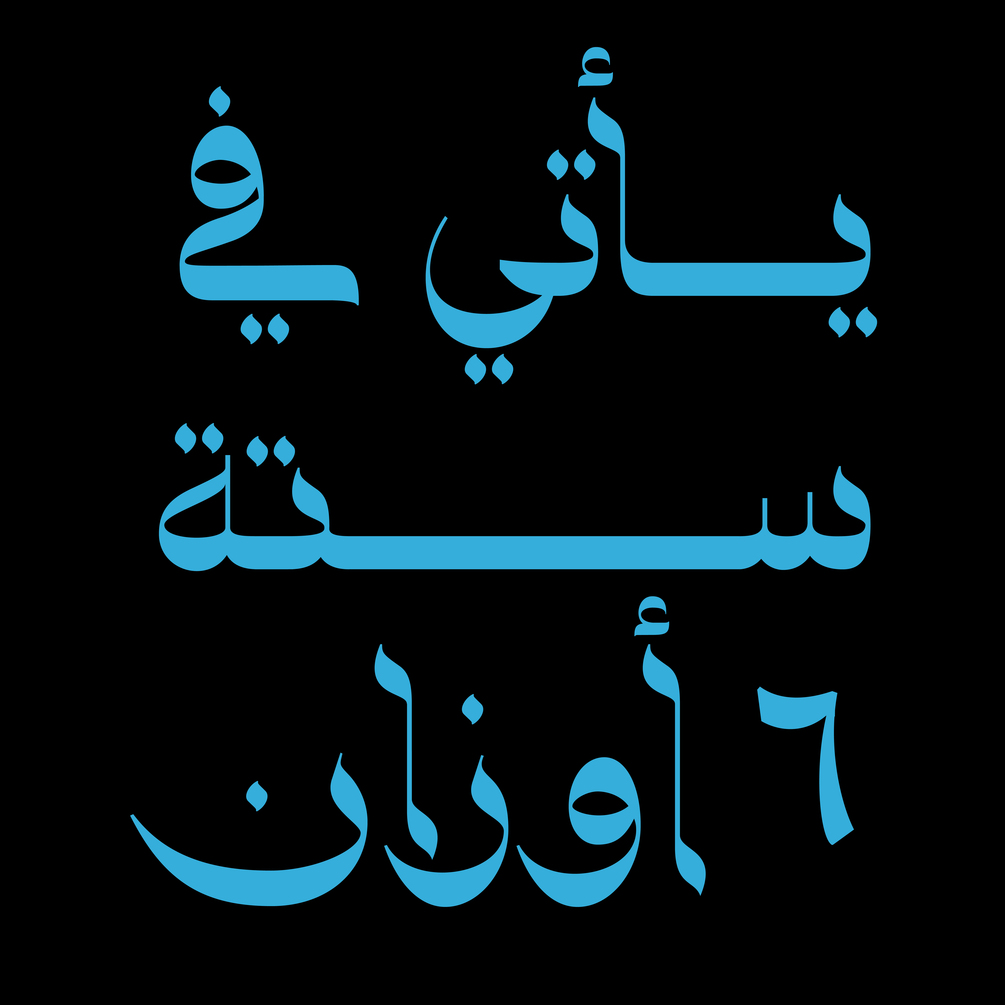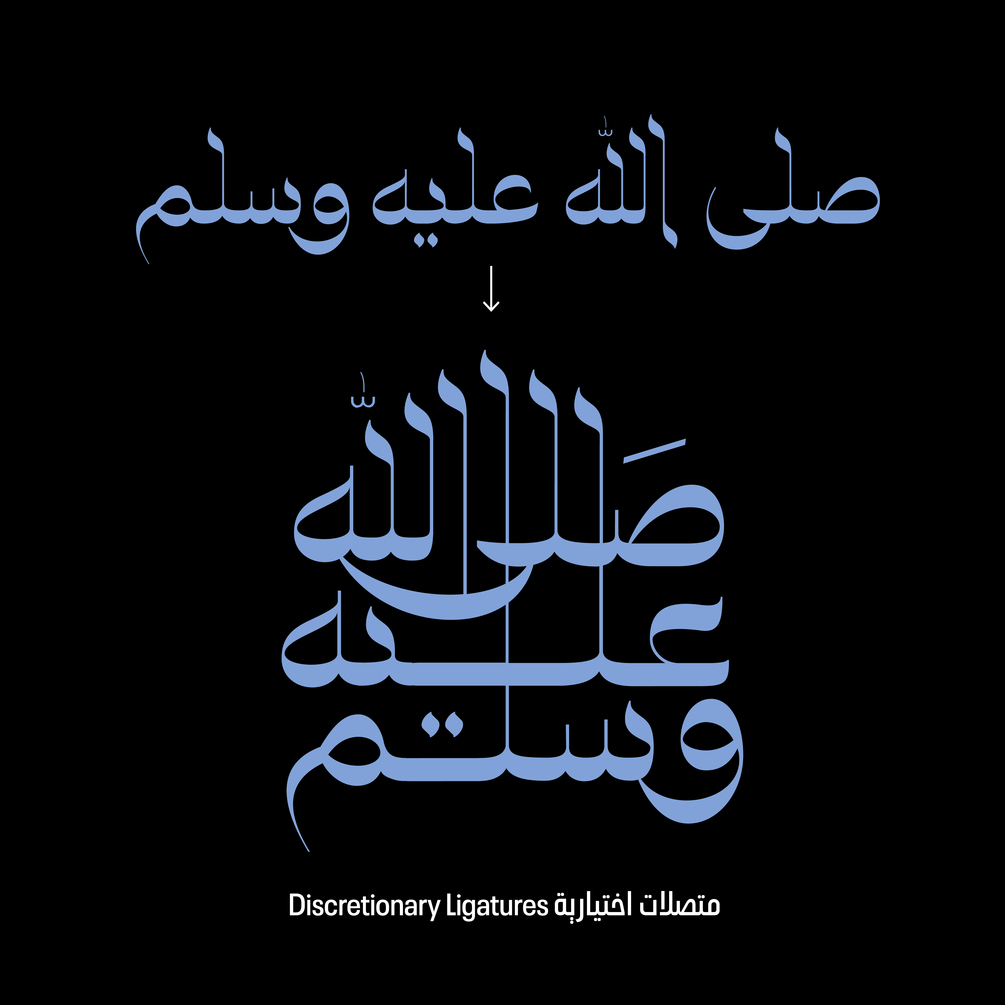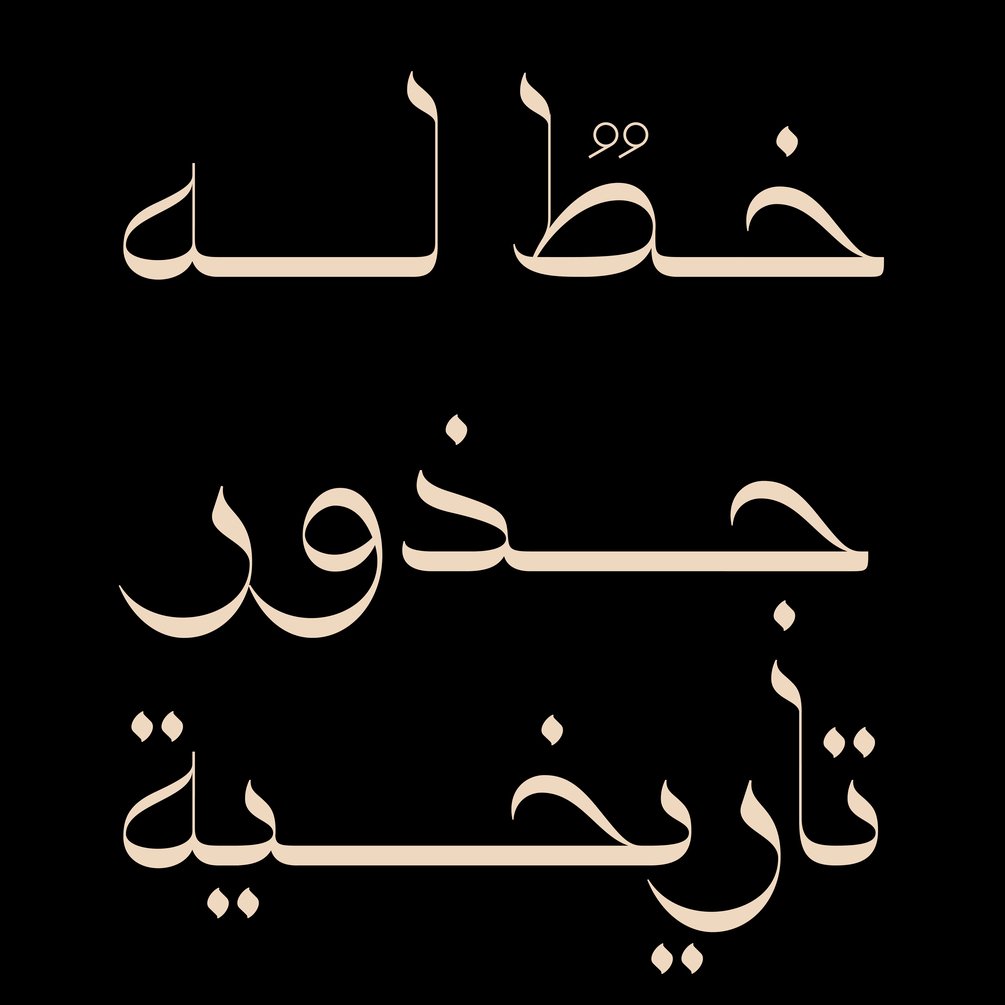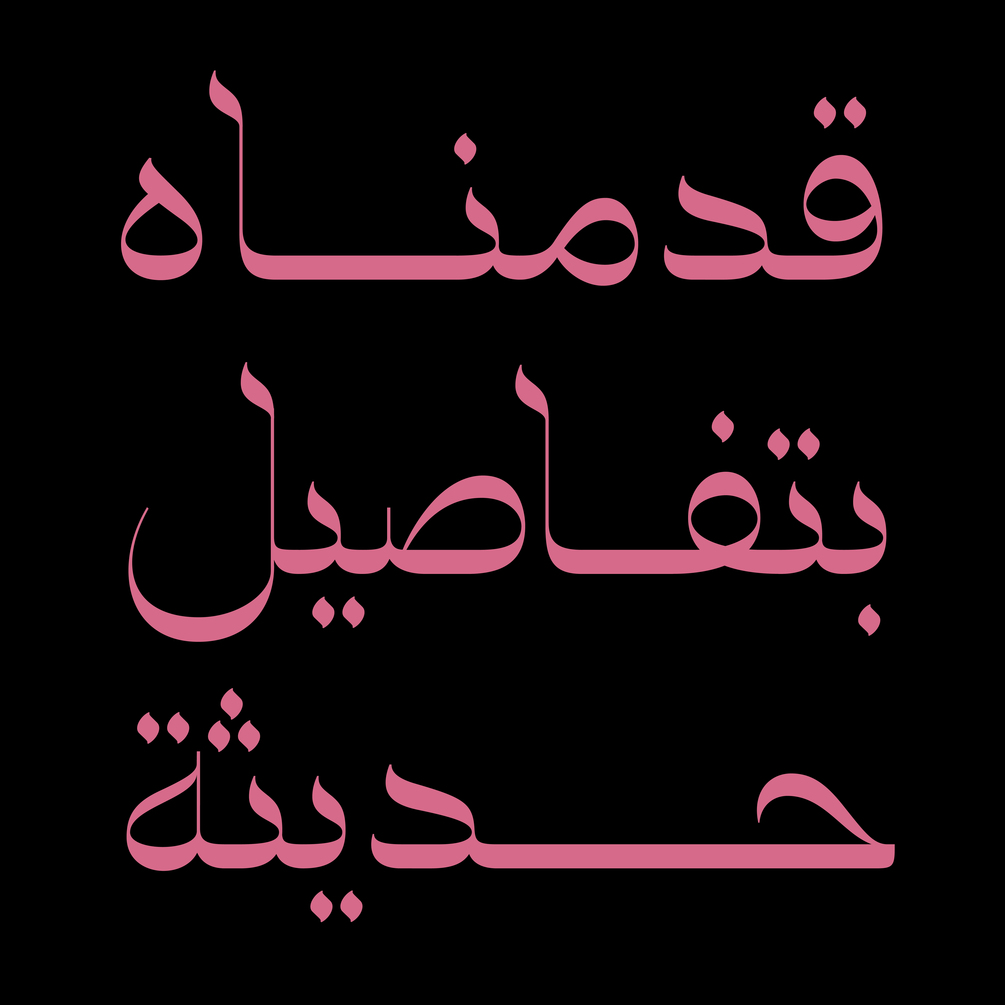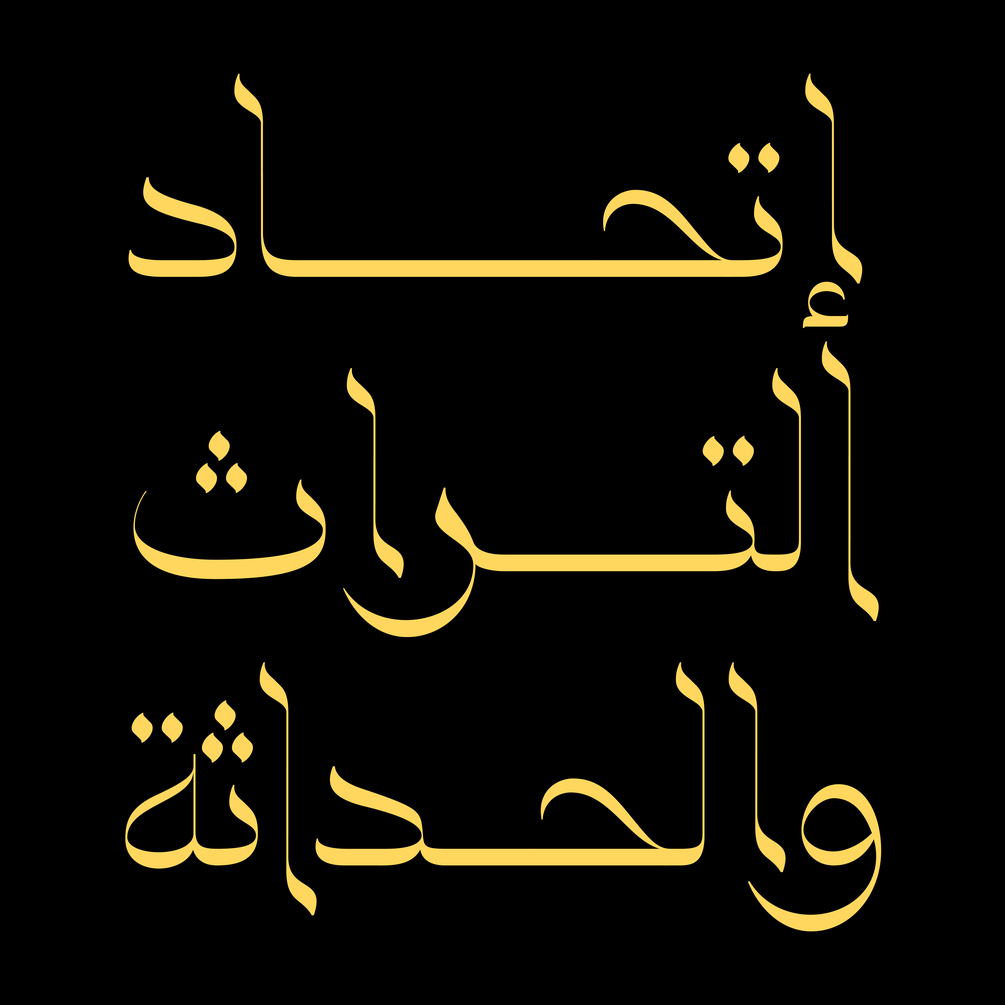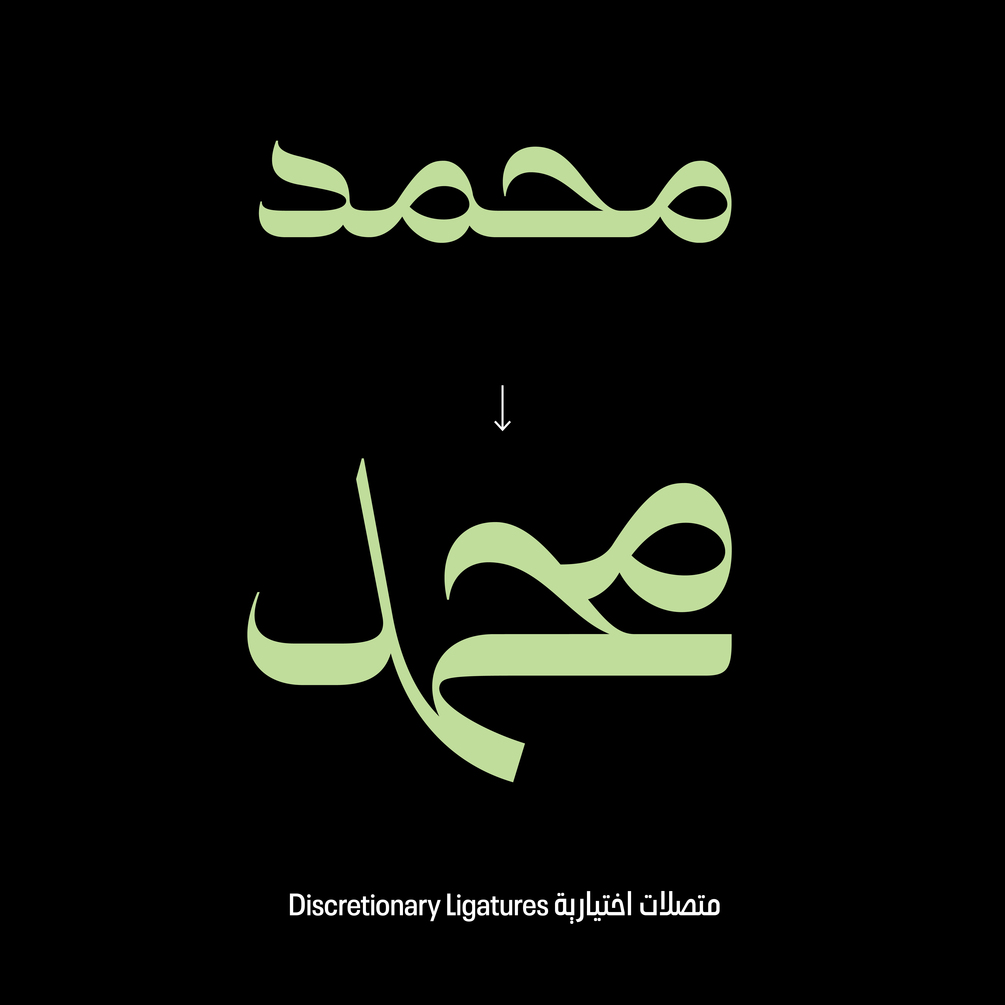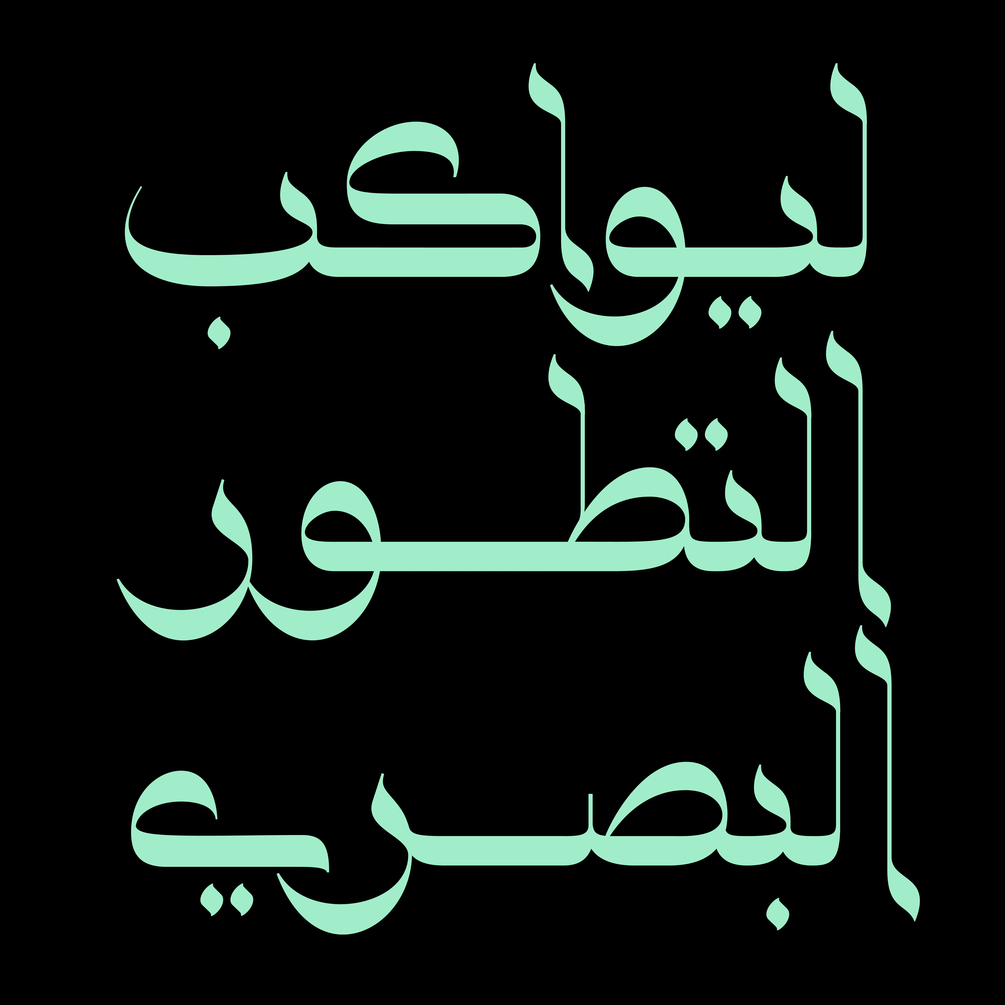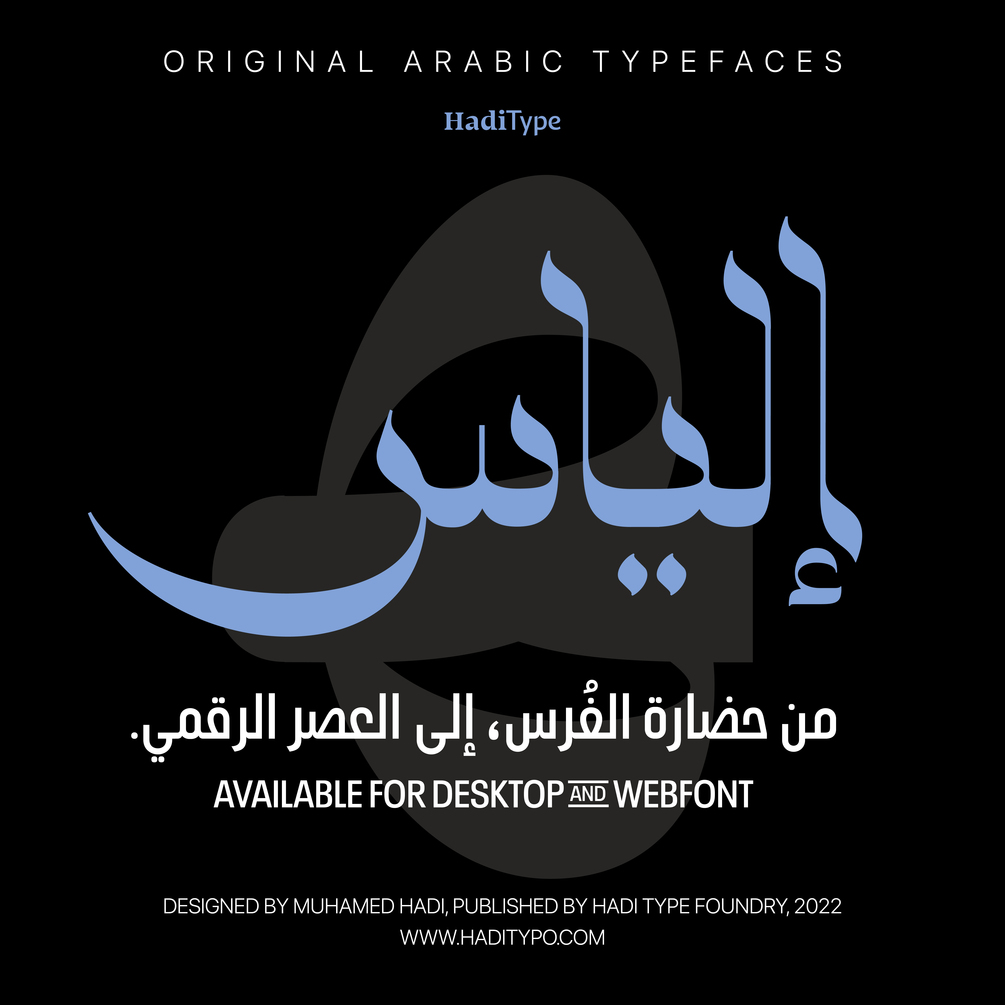
HT Elias
Elegant and stylish, Hadi Typefoundry’s New family-type system, a bold display typeface, for impactful headlines and posters, inspired from the Nishabouri Kufic manuscript, specifically designed to reduce excessive white space and create tight word blocks. It all starts with the basic letter shapes, by reversing the contrast we’re shifting most of the weight to the top and bottom tarwees.